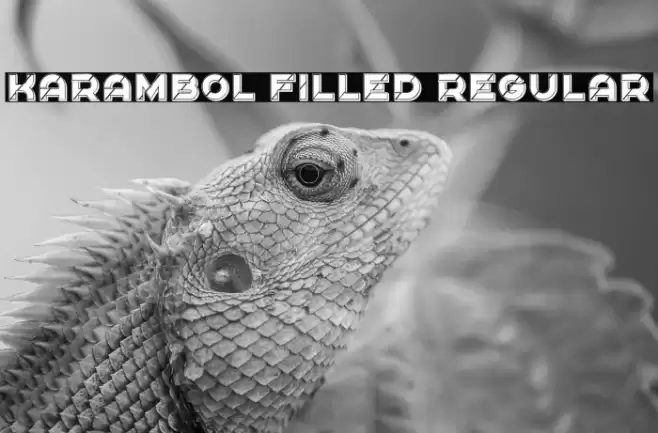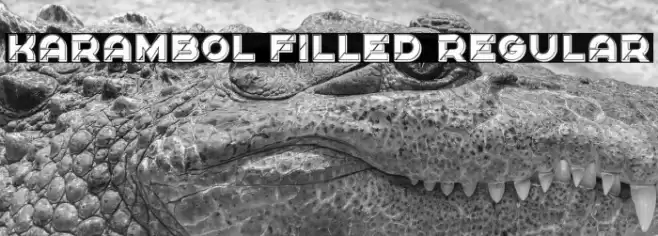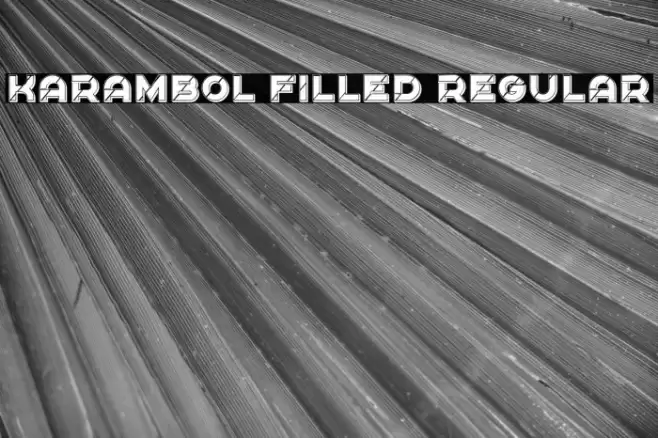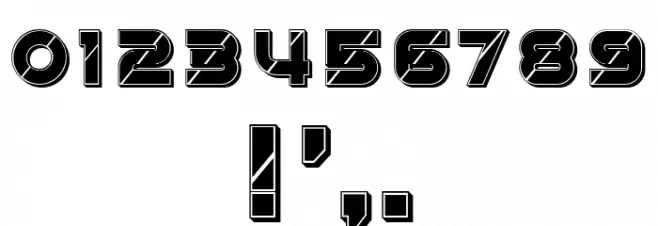
Karambol Filled Regular Font
Karambol Filled Regular Description
This font features a bold, geometric design with a filled, three-dimensional appearance. The characters are constructed with thick strokes and sharp angles, creating a dynamic and impactful look. The style is reminiscent of retro-futuristic aesthetics, with a strong emphasis on symmetry and balance. The uppercase letters are particularly striking, with their bold forms and intricate detailing. The numbers and special characters maintain the same bold and structured design, ensuring consistency across all elements. This font is ideal for projects that require a strong visual presence and a modern, edgy feel.
A bold, geometric font with a filled, three-dimensional look and retro-futuristic style from Uncategorized fonts.
- Proposed Projects: Ideal for posters, logos, video game graphics, and any design needing a bold, modern touch.
- Overall Style: Modern, Retro-Futuristic